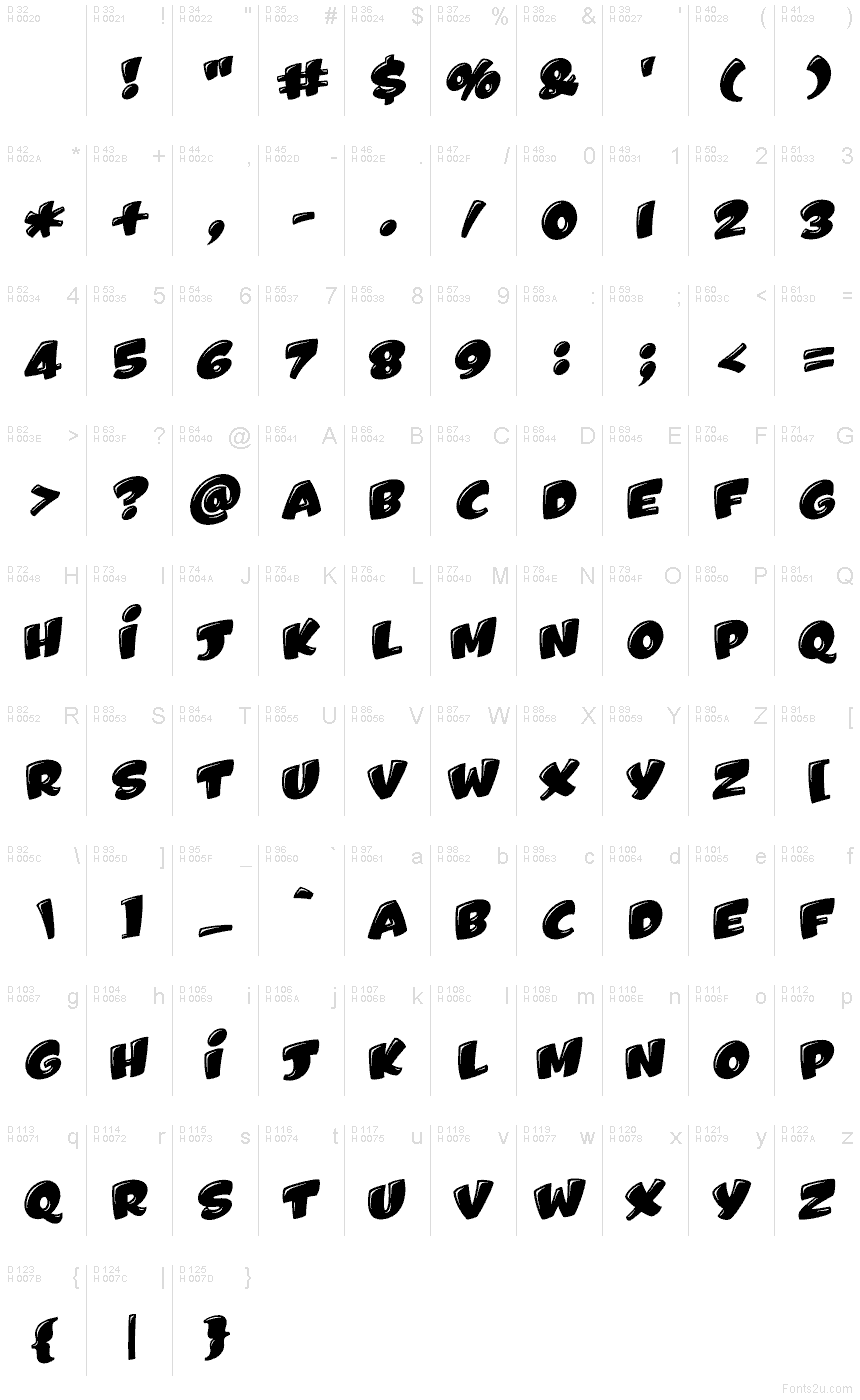
Oups
Oups font by Youssef Habchi is a free bold comic display font. Built around plump, ink-heavy strokes with glossy, airbrushed highlights, it lands with a chewy, balloon-like bounce that reads loud even at a glance. The letters swell and tilt with a cartoon swagger, giving headlines a tactile, almost sticker-like pop without slipping into chaos.
Using Oups, you’ll nail punchy titles for snack packaging, kids’ posters, gaming splash screens, comic sound effects, party invites, and YouTube thumbnails. The generous curves create a steady rhythm, so short words hit hard and linger. For balance, pair this free font with a light, neutral sans for body copy and let Oups do the shouting at larger sizes.